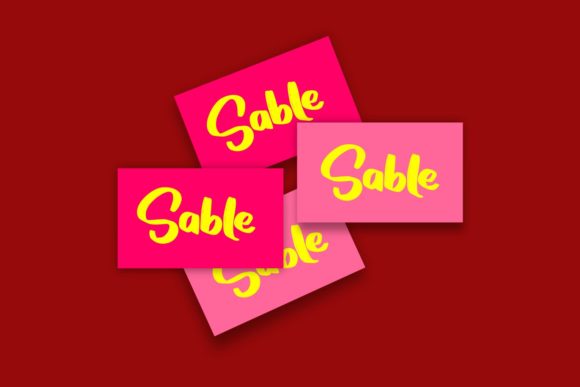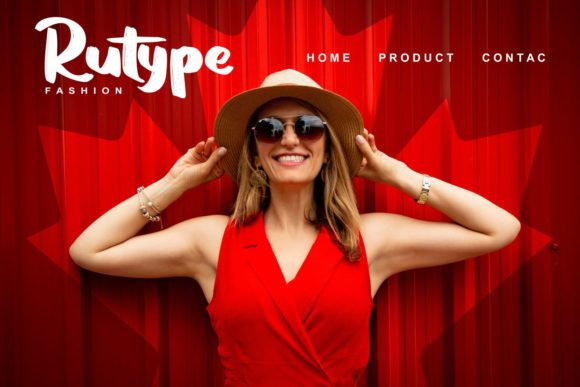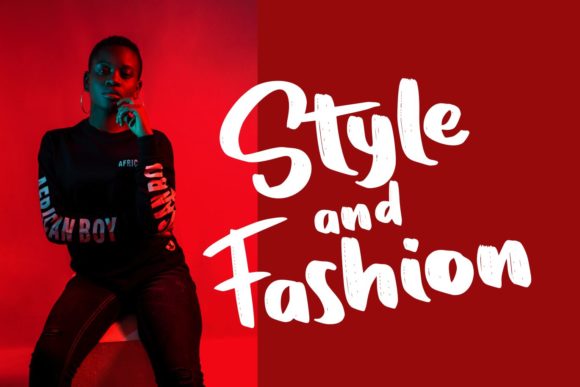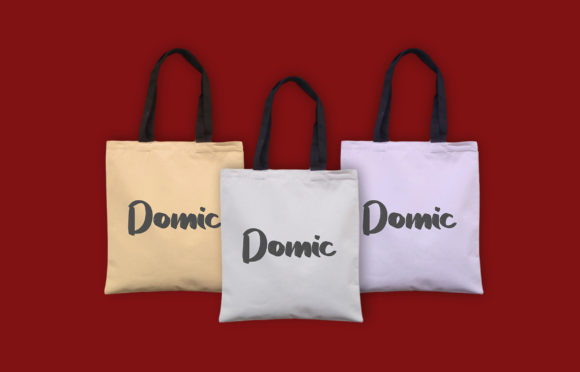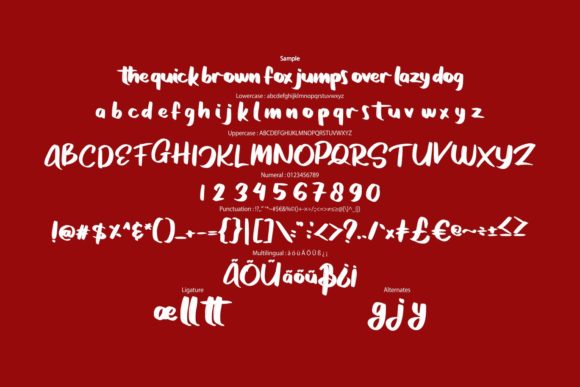
Kalled Font
About Kalled Font
Kalled is a modern typeface script font with a calligraphy style. Get inspired by its unique charm, and turn any design idea into a true standout!